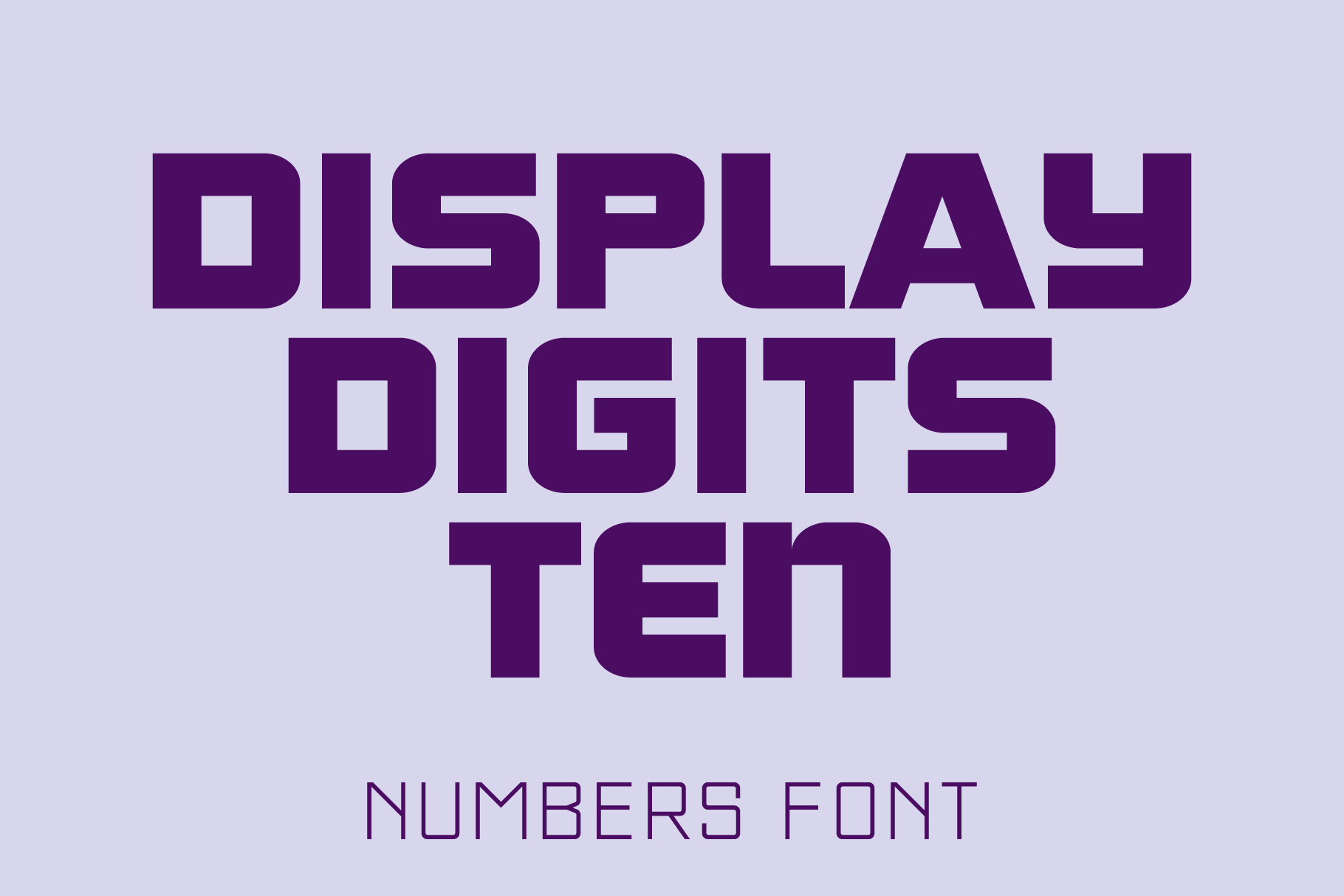
Display Digits Ten Font
Display Digits Ten is a display numerical digit font with eight sets of variations of the same digits. The digits 0 through 9, with period and comma in appropriate variations, are prepared as (1) solid, (2) outline, (3) solid with contour outline, (4) outline with 3-D shadow, (5) 3-D shadow only, (6) outline with drop shadow, (7) positive in circle, (8) negative in circle.